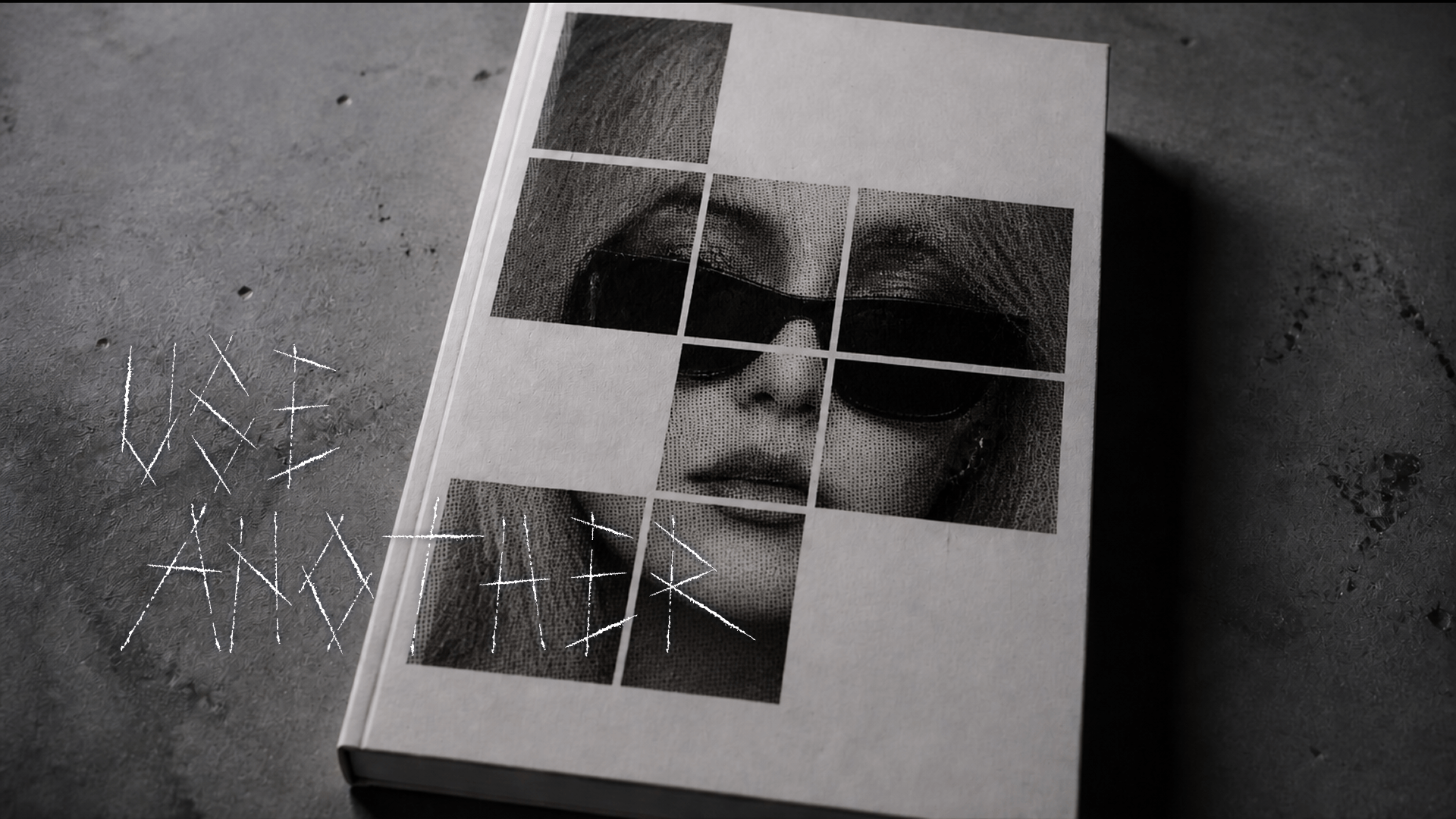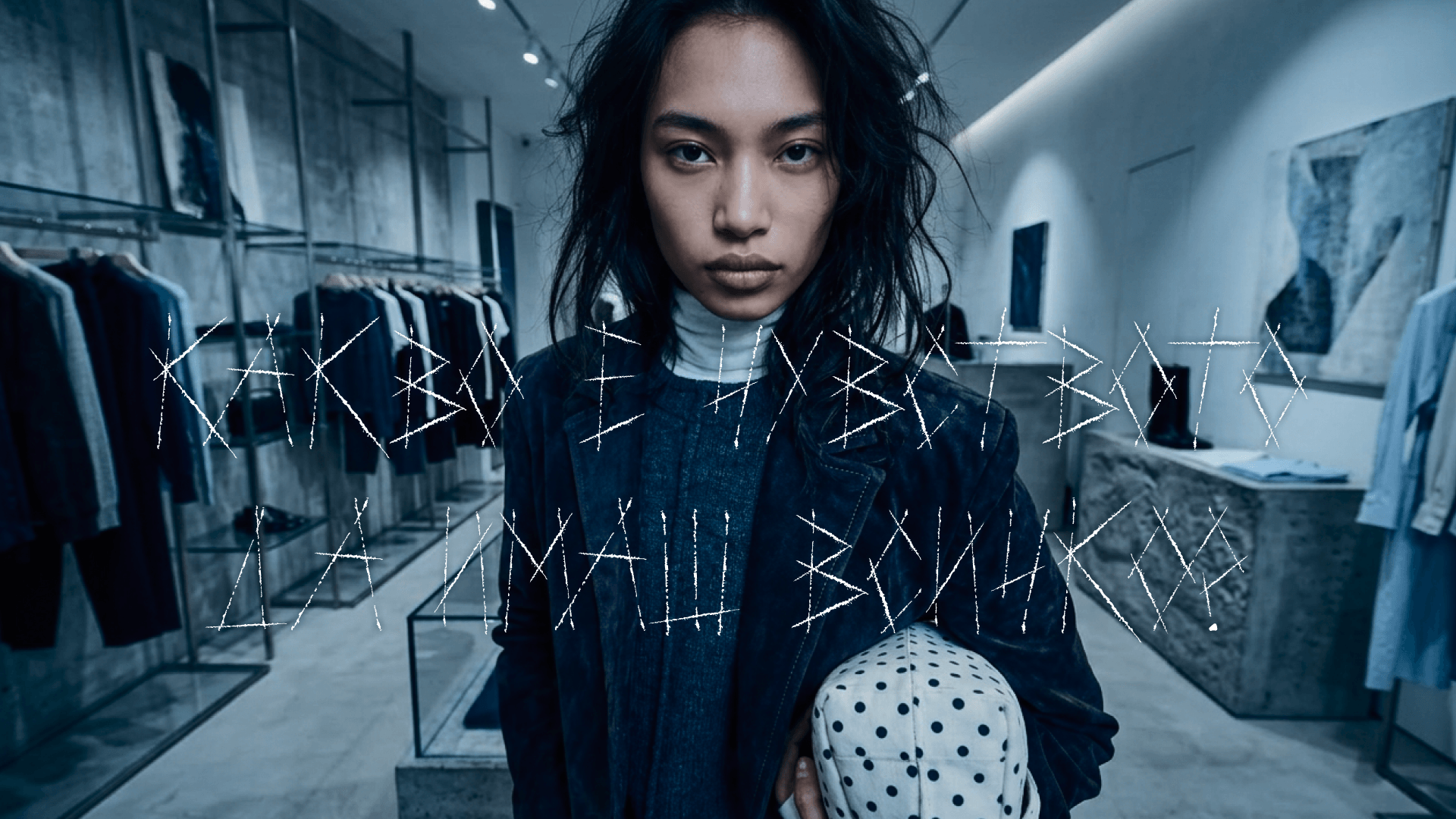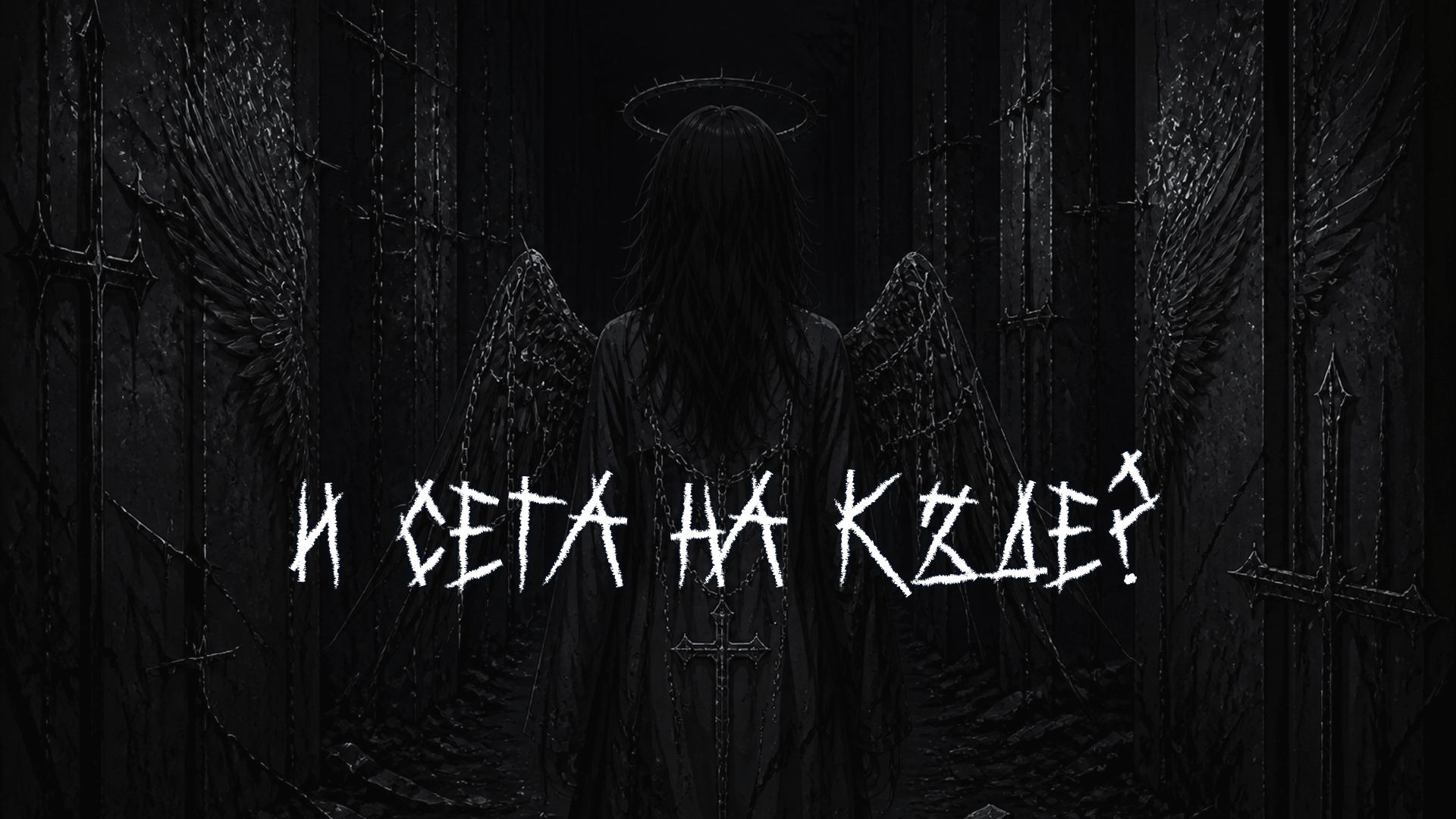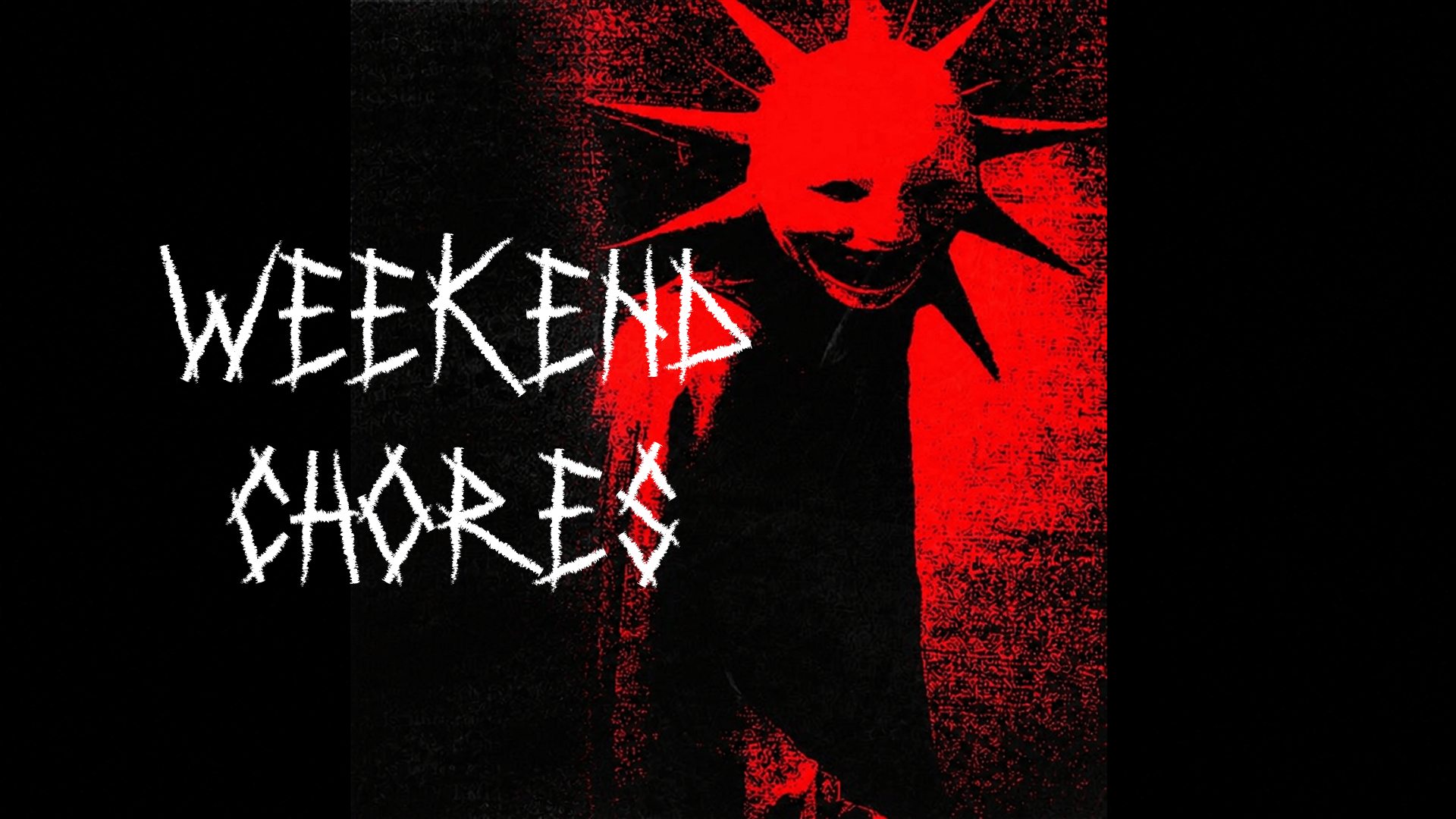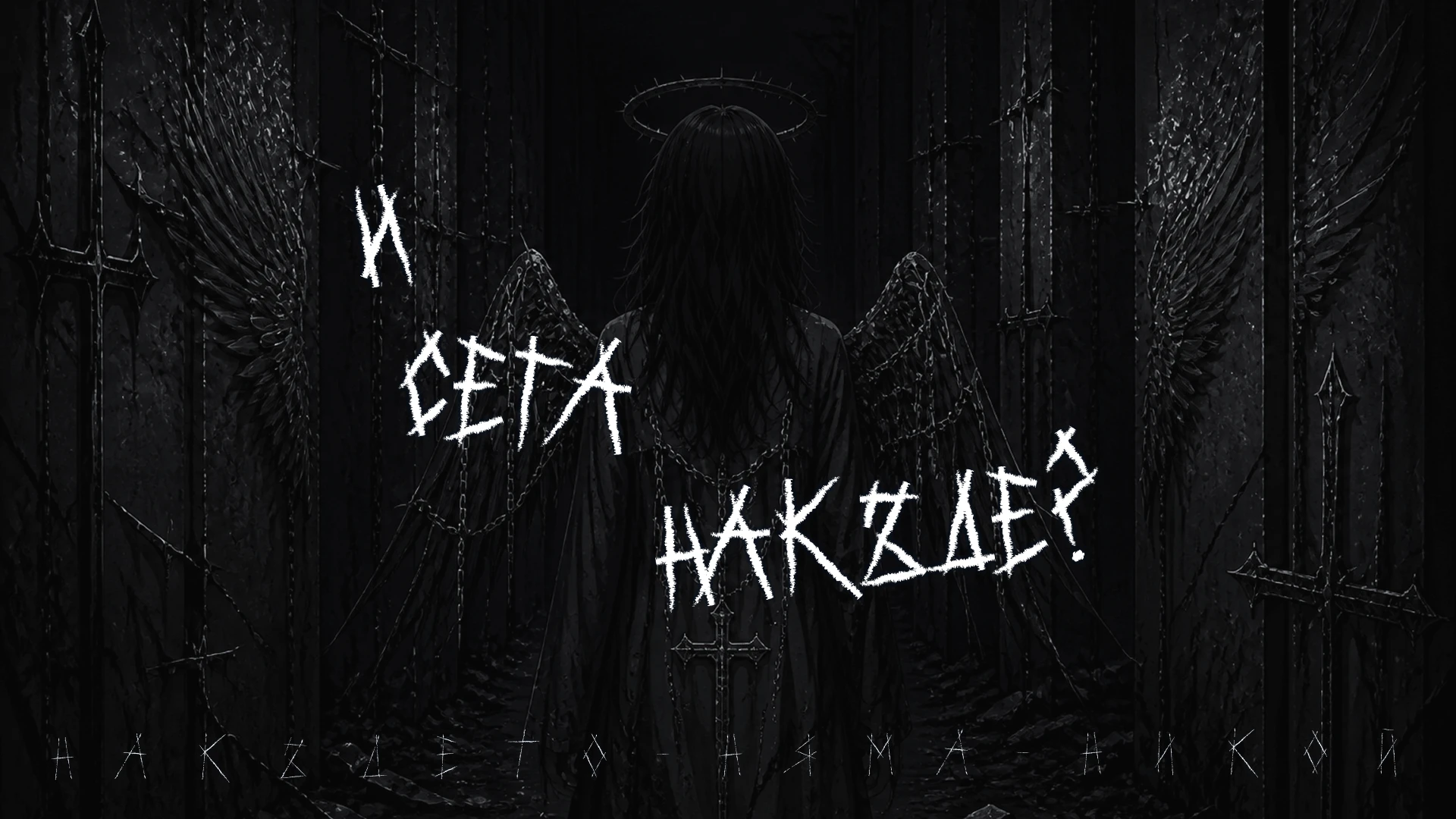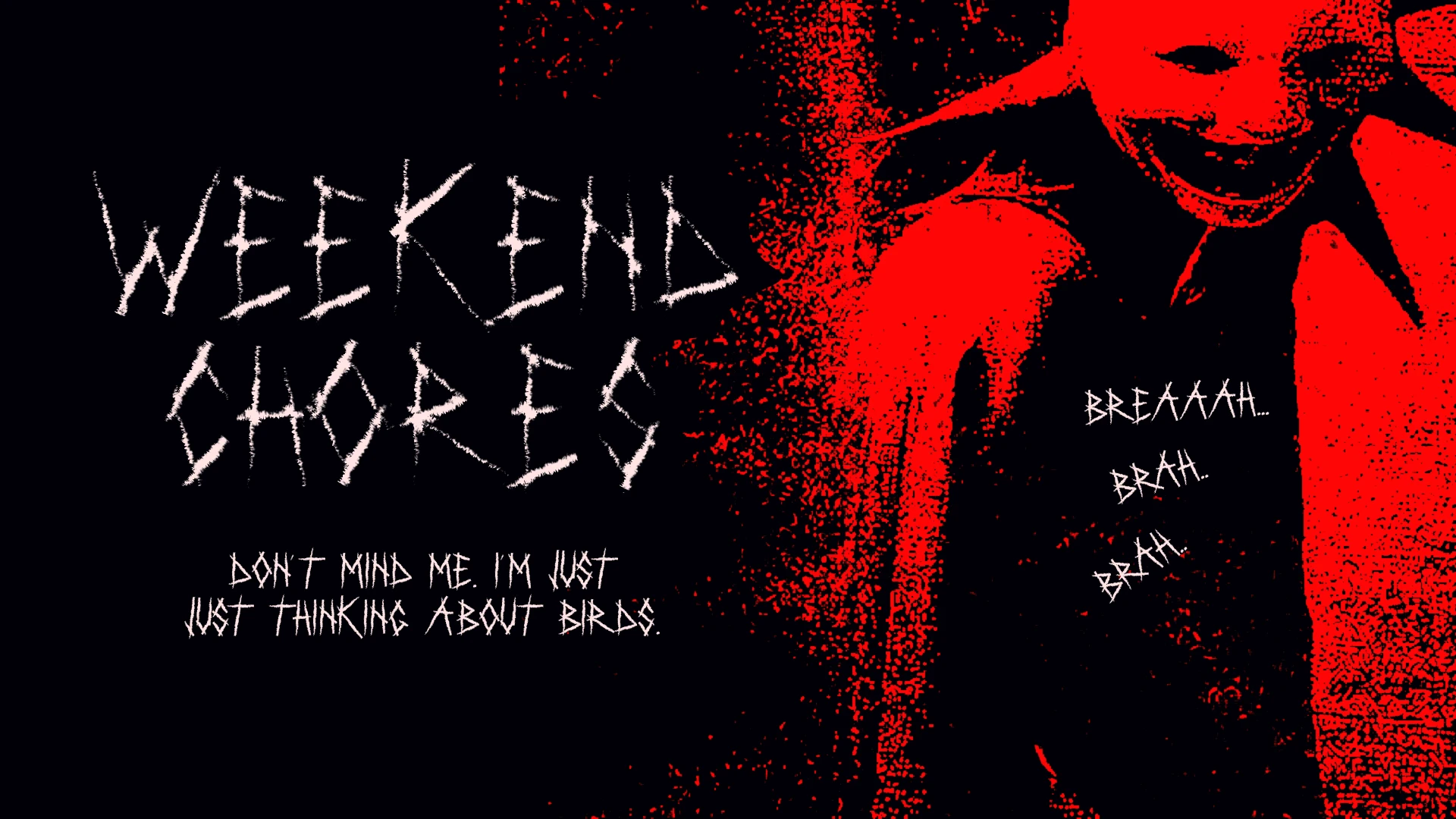
| Family Name | Cokesplit |
| Designed By | WORSHIP |
| Category | display |
| Languages | Latin and Cyrillic |
Cokesplit is an edgy script typeface with a scratchy, unrefined feeling. It comes in two weights that carry very different moods - one lighter, the other heavier and more aggressive - giving designers flexibility within the same gritty concept. It supports both Latin and Bulgarian Cyrillic letters.
An unsettling, edgy energy runs through every angsty stroke, with letterforms that almost look like scratches from nails on wood. That scratch-horror texture makes Cokesplit distinct among script fonts - it's built for short headlines and short sentences.
This gritty script font fits naturally into metal and rock band posters, horror-leaning album covers and wallpapers, fashion promo visuals, and edgy book cover design.